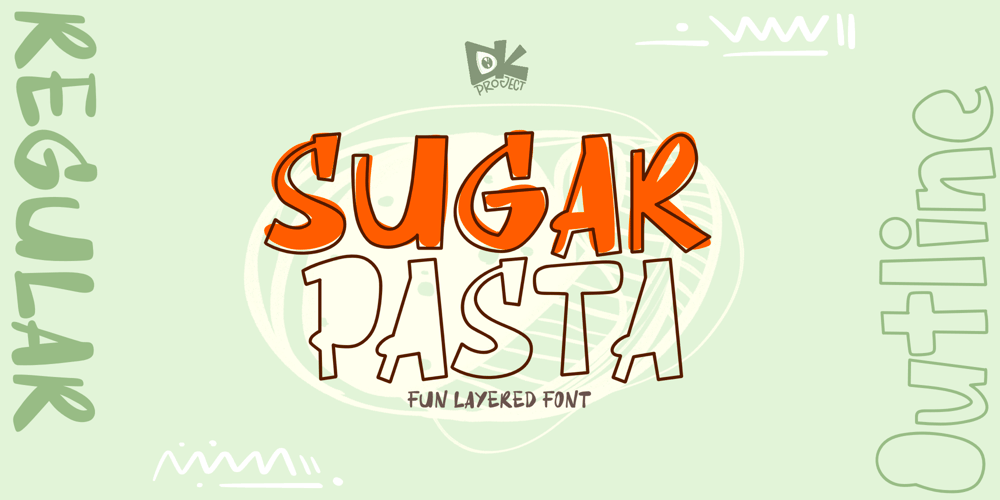
Sugar Pasta Font Family was designed by Degi Kurniawan and published by D&K Project. Sugar Pasta contains 2 styles and family package options. Sugar Pasta is unique layered font, This playful and cheerful display font combines boldness with a outline style (you can layered it front or beside a font and making it perfect and make unique style, really playful to used this font :)if you used procreate? you can install it at procreate and really fun to make some tittle or display font.You will get 2 style font Regular and Outline and standart typeface with punctuations, number and standard multi linguals.really appreciate to visit our store and other product and dont forget review our shop for more support our project.Thank you.